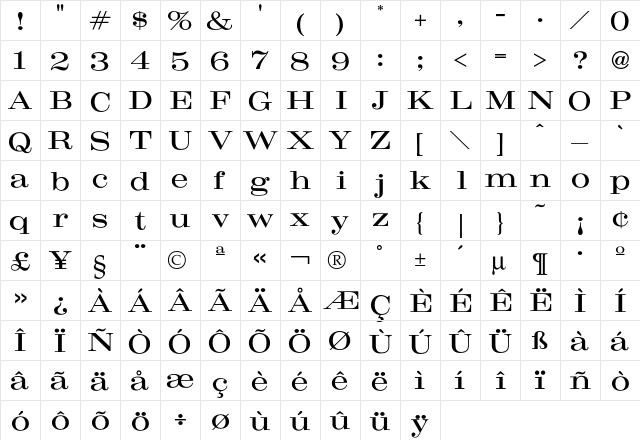
Craw Modern Font Preview
Craw Modern
| Style | Modern |
Design Context for Craw Typeface
Craw is a composed and adaptable typeface that performs quietly and consistently across a wide range of design contexts.